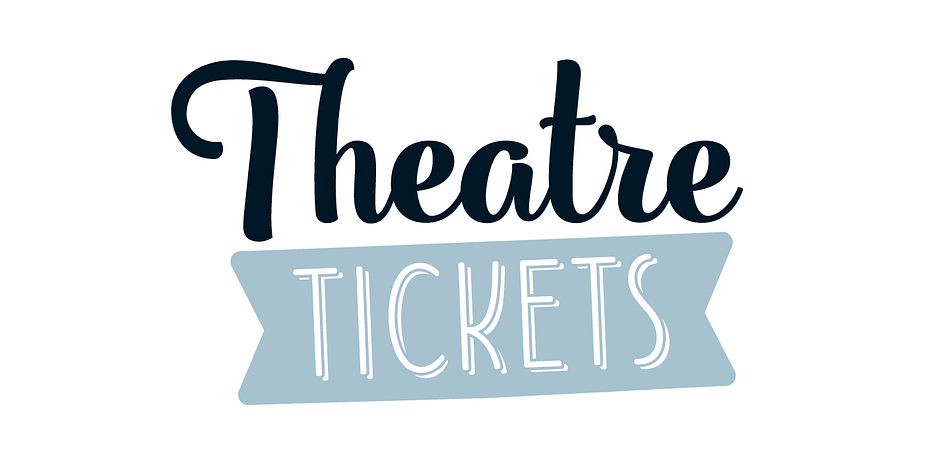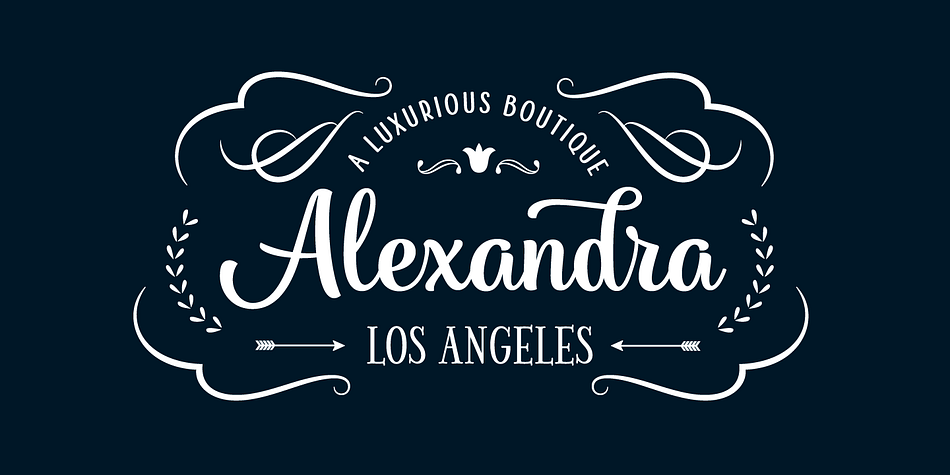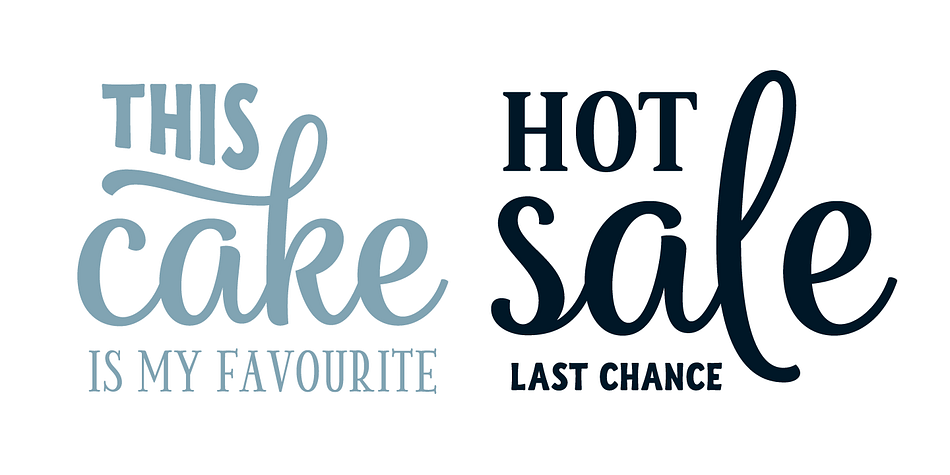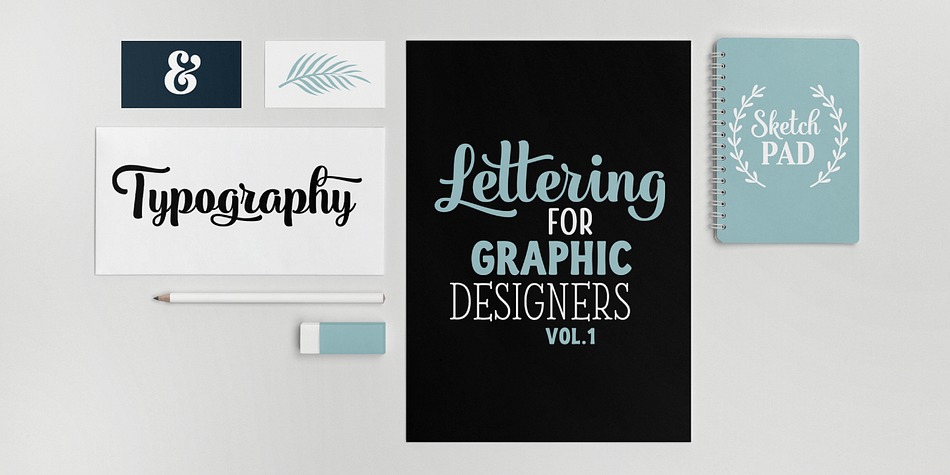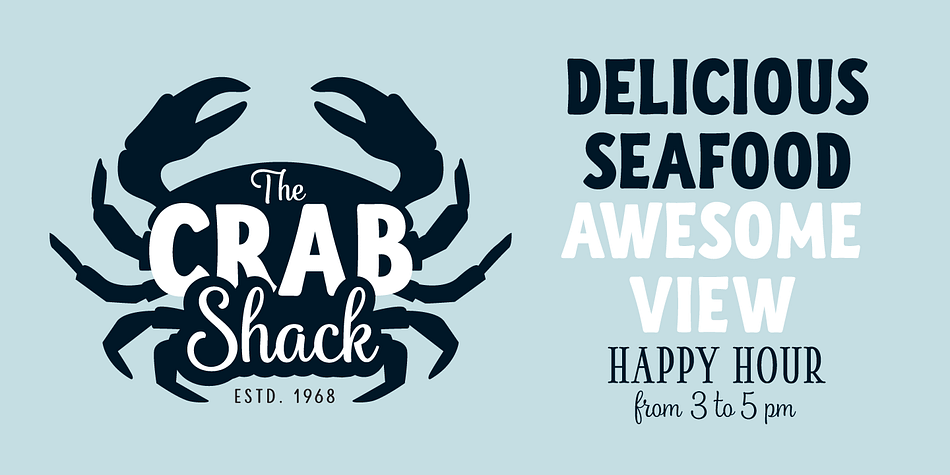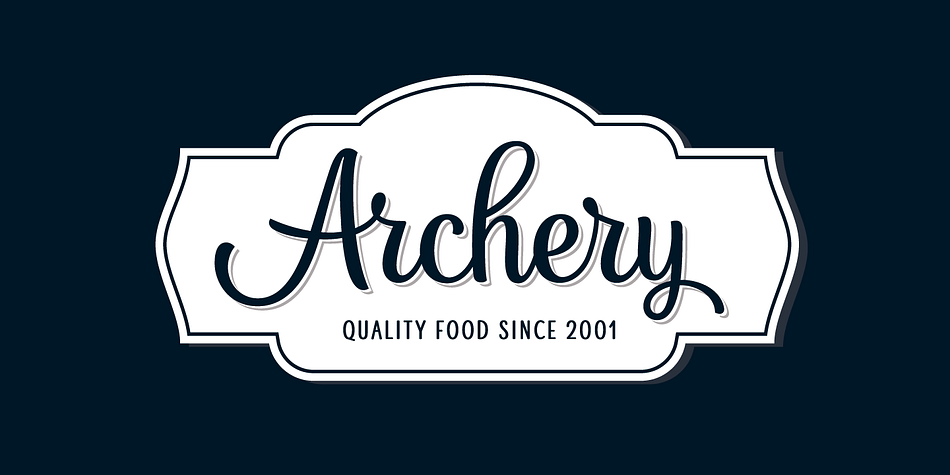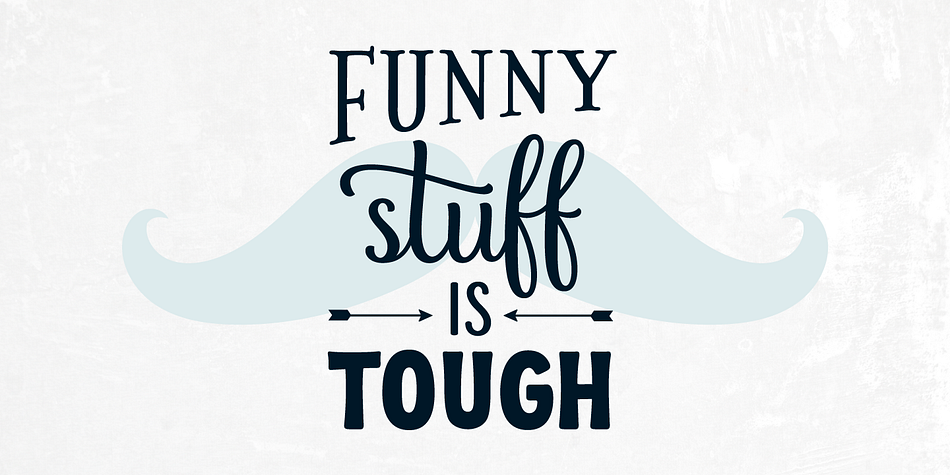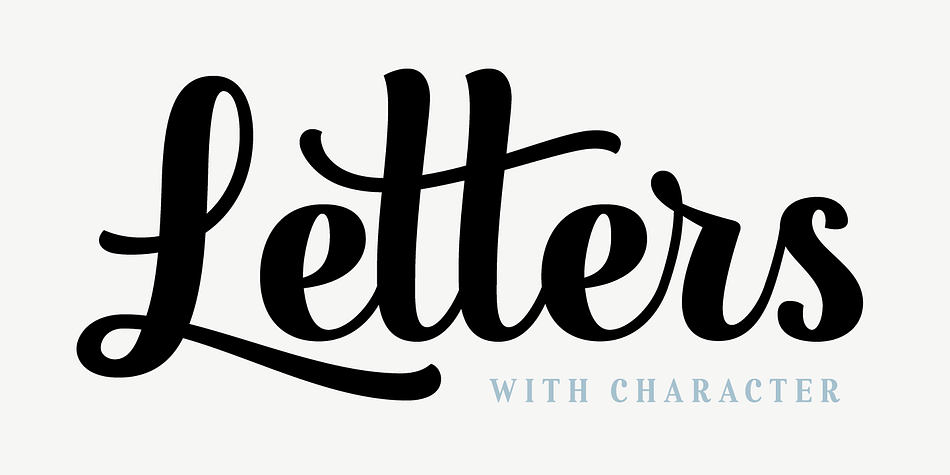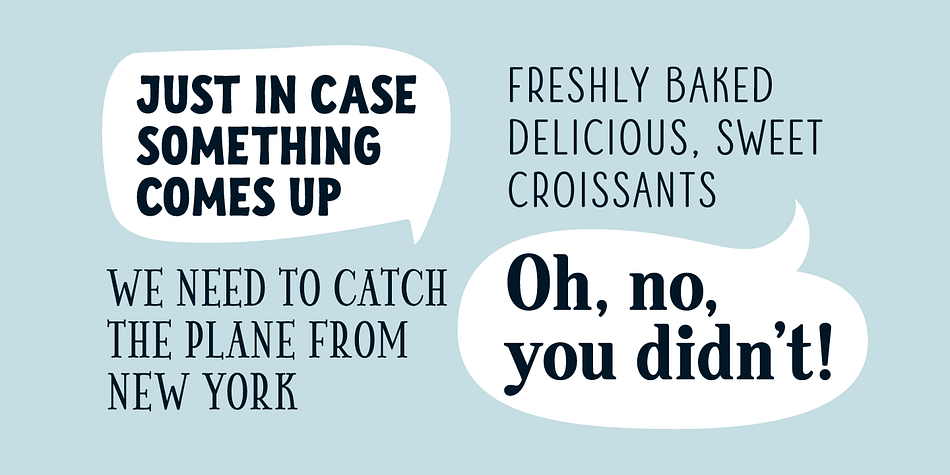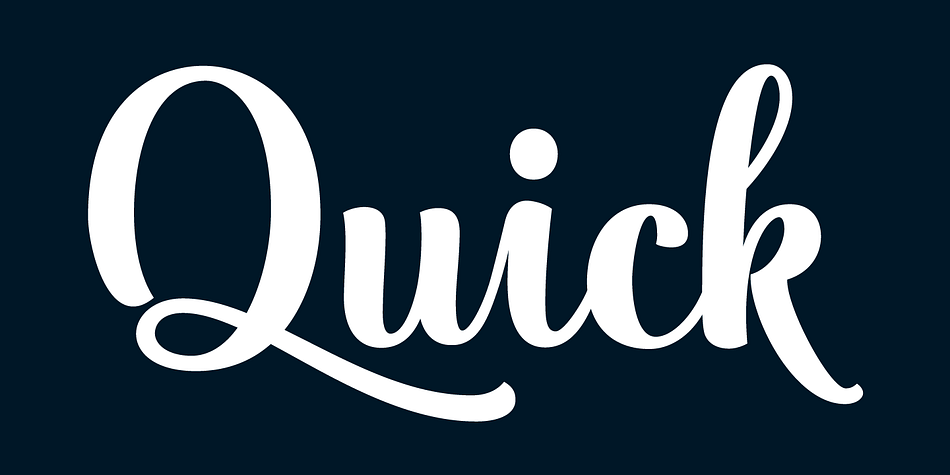
Designed by Veneta Rangelova, PhotoWall is a multiple classification font family. This typeface has sixteen styles and was published by DearType.
PhotoWall is a casual, connecting script in four weights with lots of swashes, ligatures, and alternates. It comes with a comprehensive package of complementary fonts: PhotoWall Sans, PhotoWall Poster Sans (a bold humanist all caps font), PhotoWall Serif, PhotoWall Poster Serif and last but not least, a bunch of frames, borders and other design elements that will help you get creative.
PhotoWall is perfect for logotypes, posters, cards, menus, product packaging, and other printables, as well as web applications. It is friendly and lovable, fresh and fun to work with. The swashes and alternate letters will add a finishing touch to every logo or headline and the sans/serif fonts are ideal when you are in need of a subtext. Inspired by home decor, PhotoWall is a versatile and elegant toolkit family of fifteen fonts with tons of personality. Mix and match for best results!